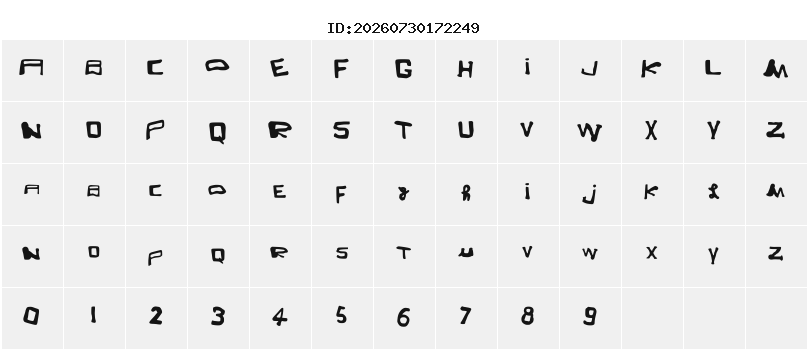
Lunazzi Preview
• Font Name: Lunazzi
• Full Font Name: Lunazzi
About Lunazzi.ttf
Lunazzi.ttf is a modern, elegant sans-serif font designed for ultimate readability and visual harmony. Perfect for branding, headlines, web design, and print materials.